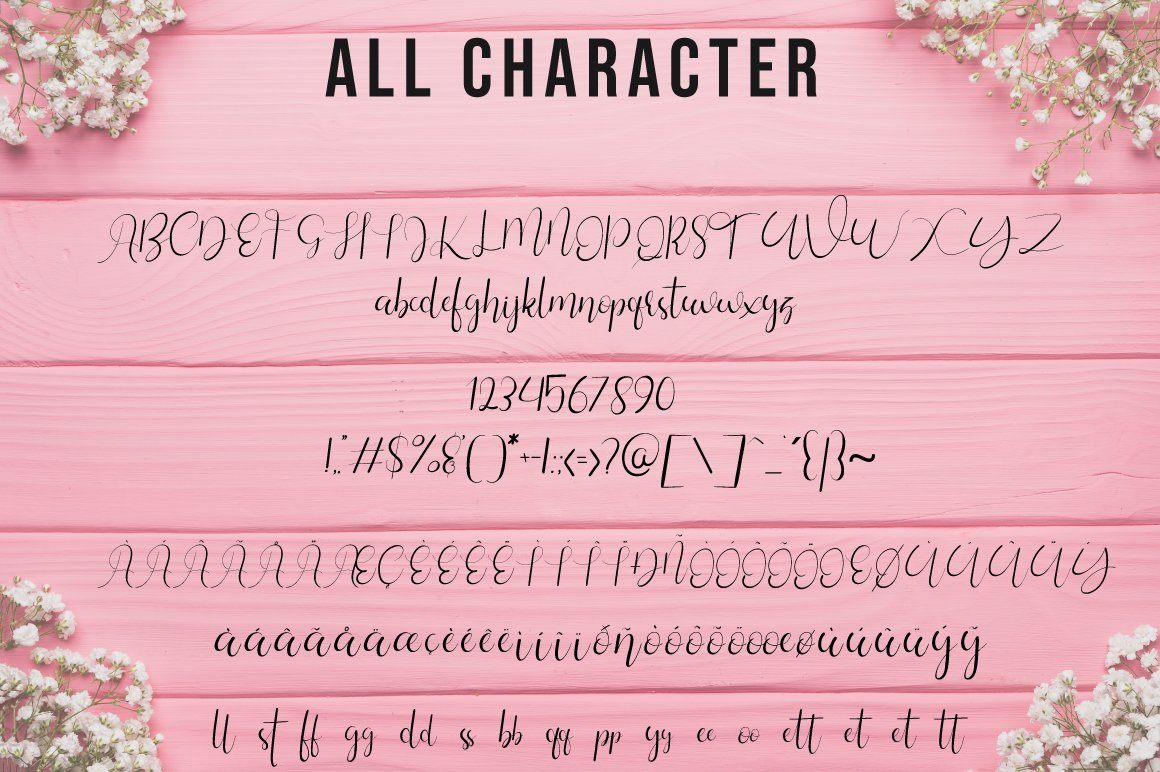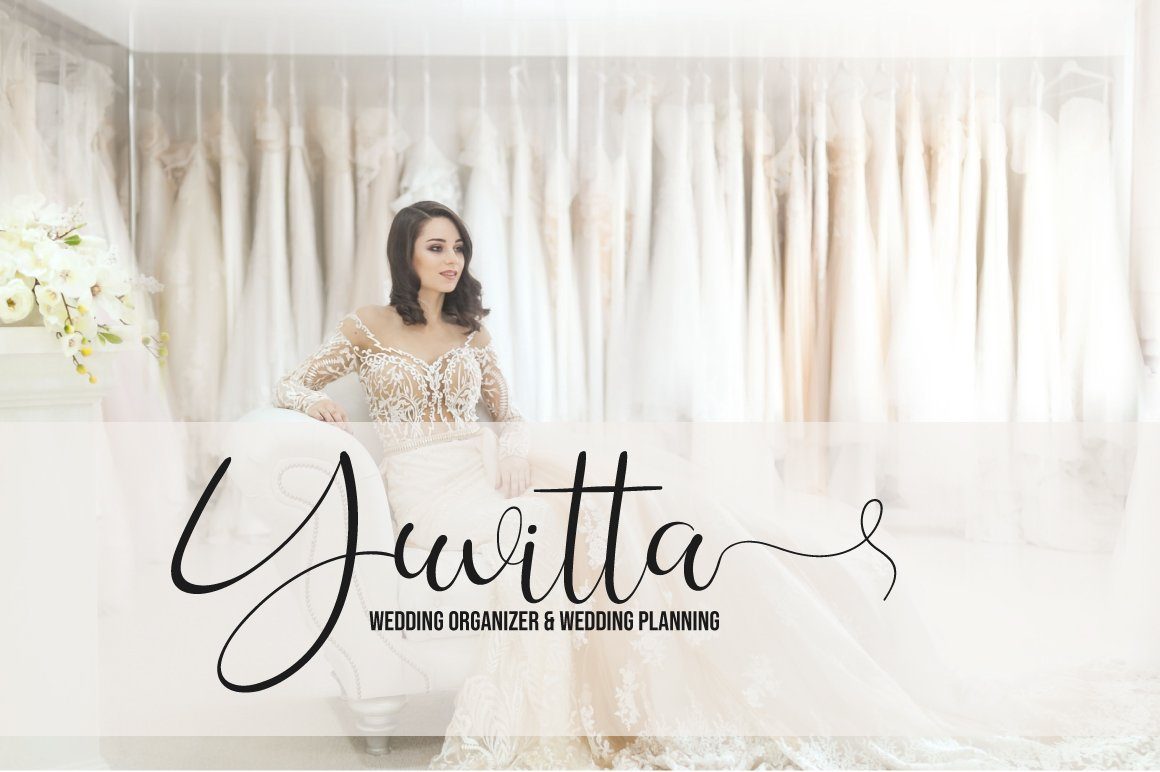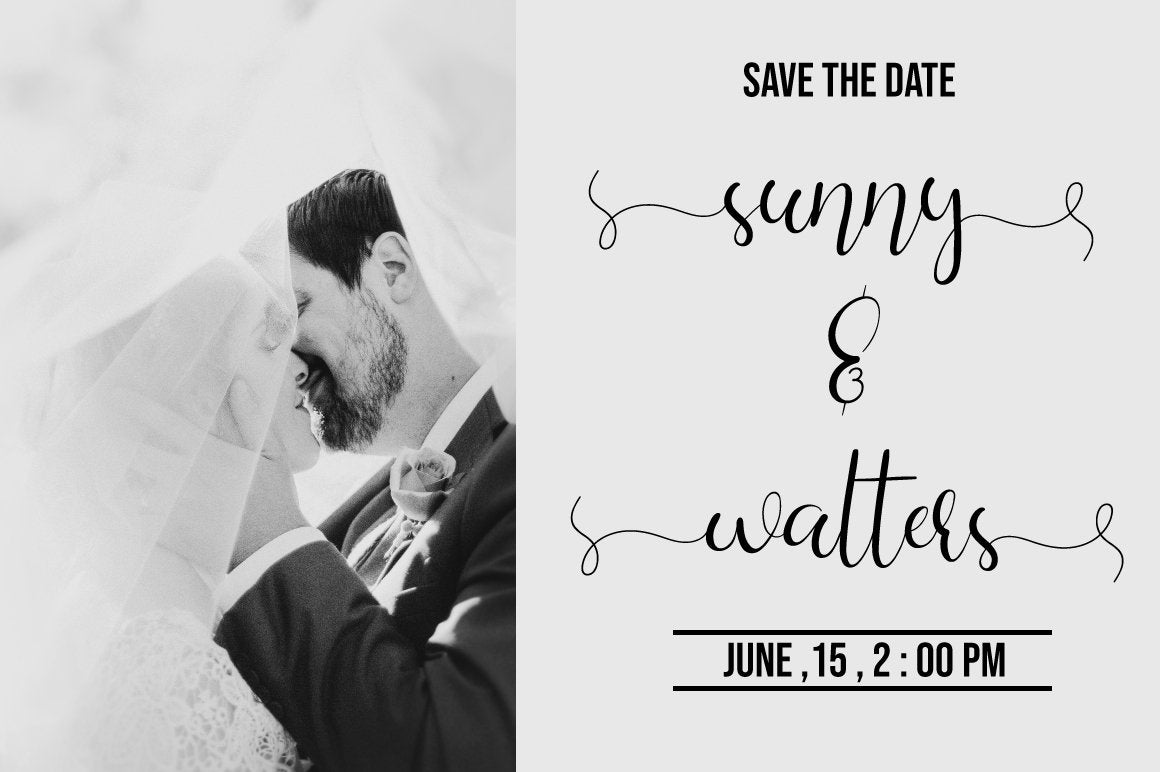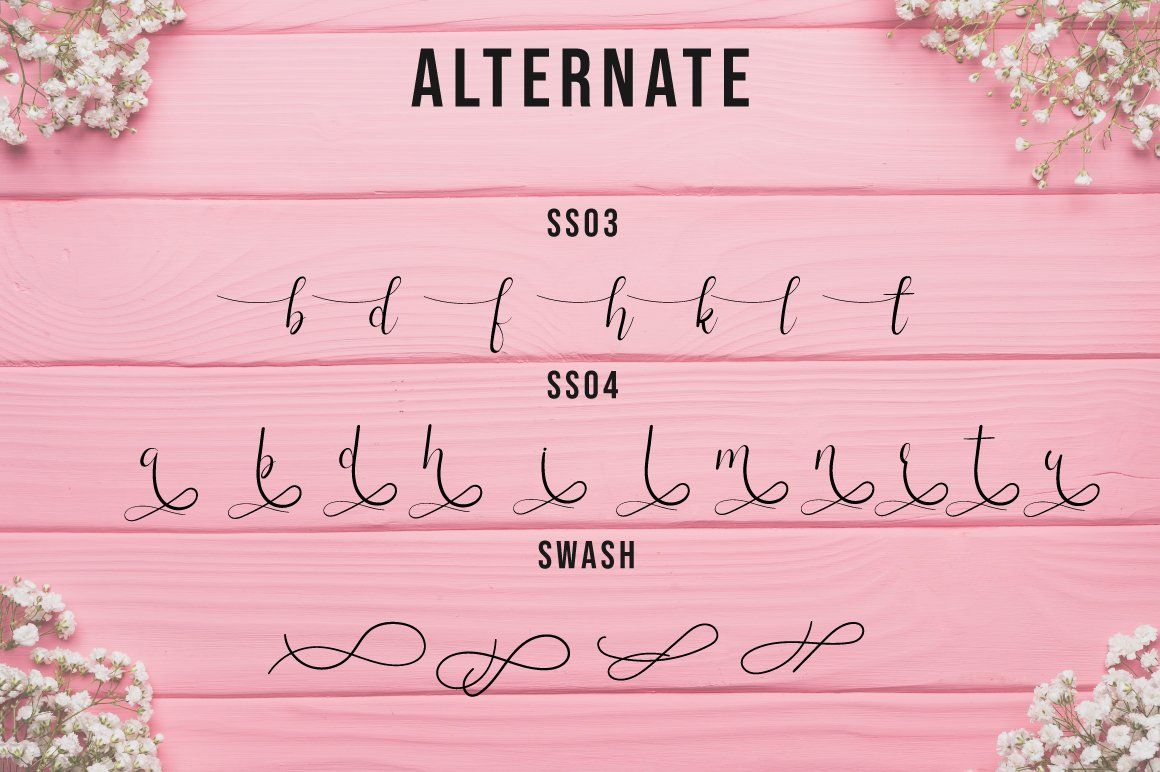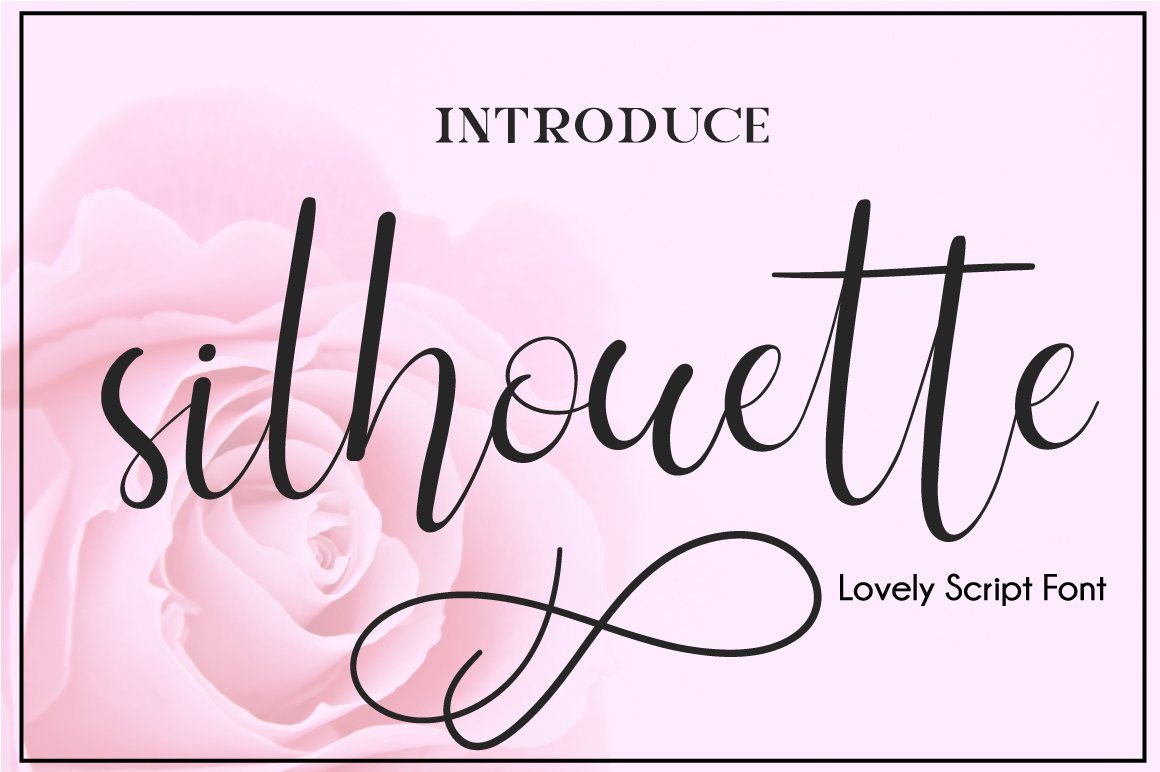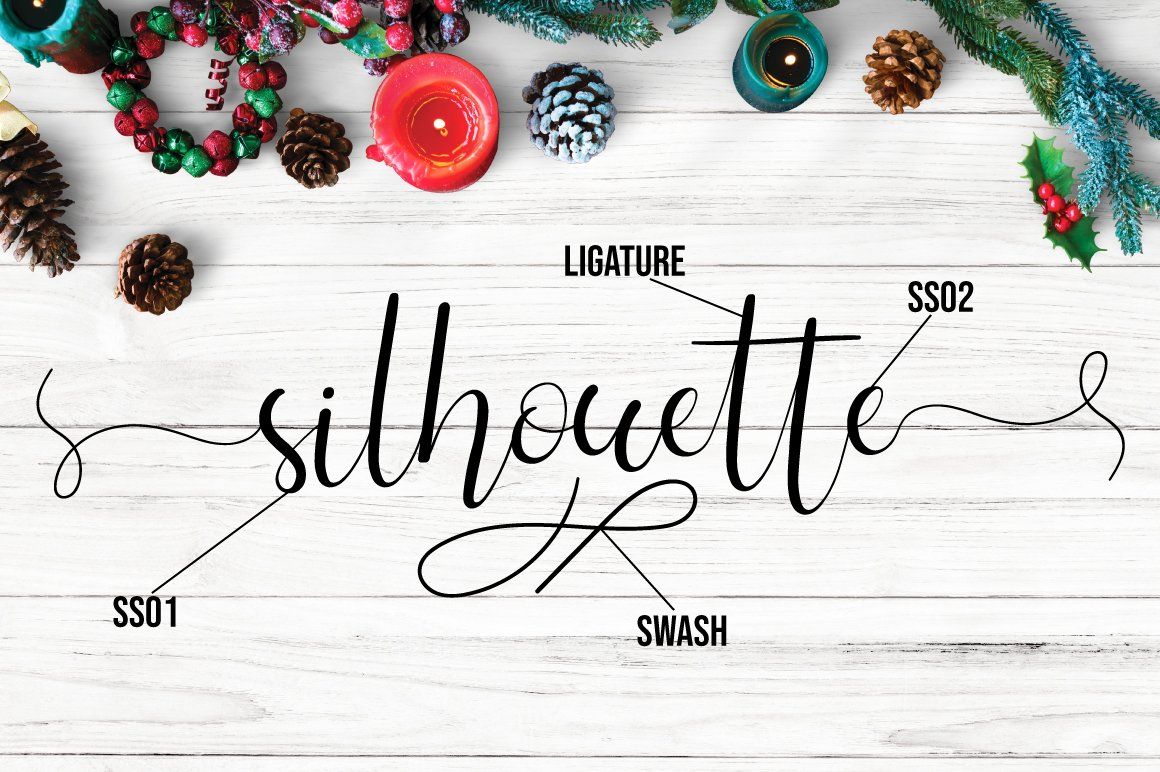
About Silhouette Script
HELLO GUYS, Say Hello ! to ‘ Silhouette Lovely Script Font ‘ , The Silhouette is a brand new typeface. It has a feminine feel that is perfect for creating elegant wedding invitations, signatures, and much more! What’s Included ? Silhouette Font ( TTF, OTF,WOFF ) The Features of this fonts is : Standart ligatures Stylistic Alternate Stylistic Set SS01-SS04 Swash Multilingual Support Thanks so much for checking out my shop! VAVA ARYANTO